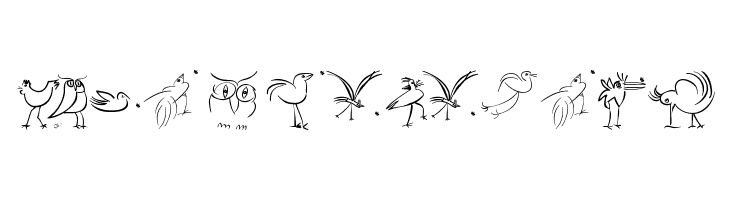
• OrnithoLogics 字体
A playful, bird-themed font with unique illustrated characters.
• Oromo_Arts_Font 字体
( Oromo Digital Arts - oromoliteratures.blogspot.com )
A decorative and modern font with bold, patterned uppercase and clean lowercase letters.
• Orphic Regular 字体
( Fonts by Achmad Yani )
A bold, artistic font with high contrast and unique curves.
• orthogon 字体
• Orthotopes 字体
A bold, geometric font with rounded edges and a modern aesthetic.
• Orthotopes Eroded 字体
( Incstone Design, by Megami Studios - Rob Barba - www.incstonedesign.com/ )
A bold, distressed font with an eroded, industrial look.
• Orthotopes Eroded 字体
A bold, distressed font with an eroded, rugged appearance.
• Orthotopes Hollow 字体
( Incstone Design, by Megami Studios - Rob Barba - www.incstonedesign.com/ )
A geometric, hollow font with a modern and futuristic design.
• Orthotopes Italic 字体